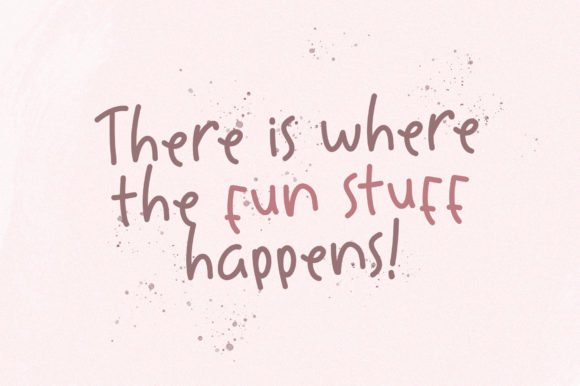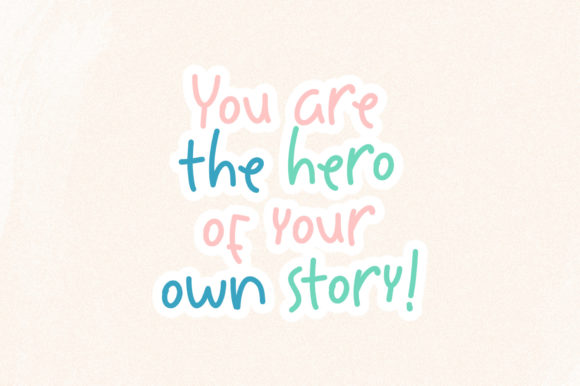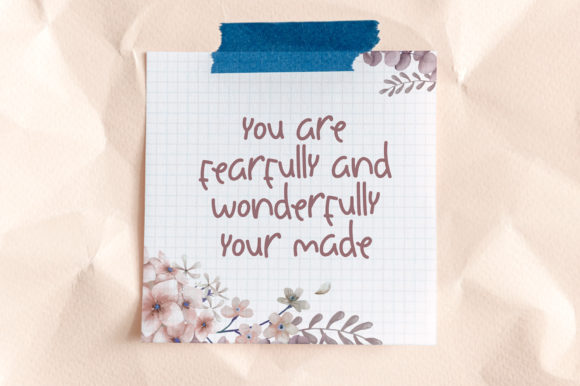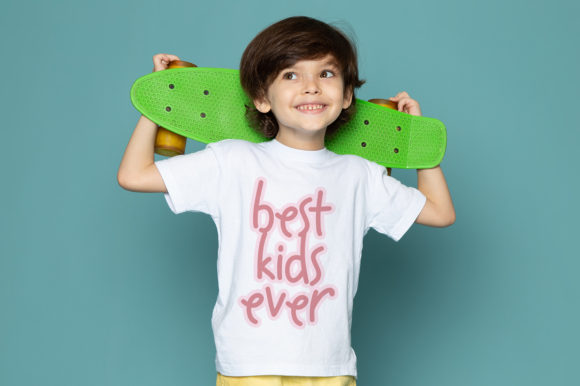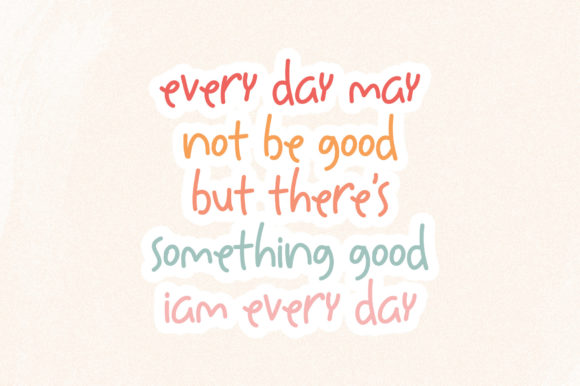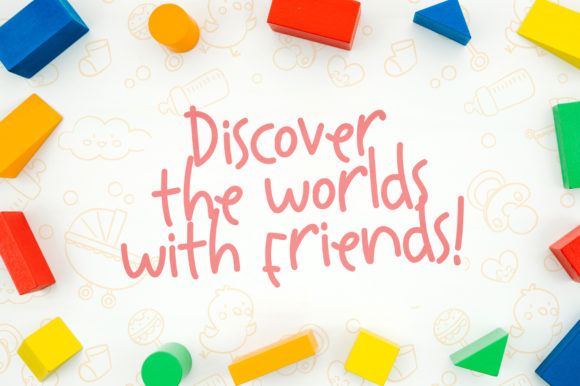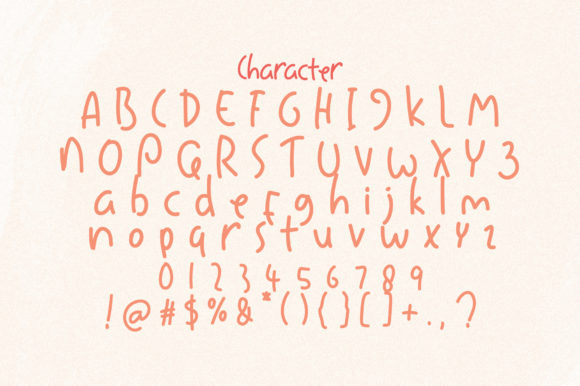
Likha Font
About Likha Font
Likha is a charming and authentic handwritten font that brings a personal and realistic touch to your designs. With its natural look and feel, it is the perfect choice for chalkboard quotes, teaching materials, and any design that requires a handcrafted vibe.
The beauty of Likha lies in its imperfect yet delightful letterforms. Each character carries the unique imperfections and nuances of hand-drawn typography, creating a sense of authenticity and warmth. This makes Likha an ideal font for projects that aim to evoke a sense of personal connection and creativity.
Whether you’re creating educational materials, inspirational quotes, or even decorative elements, Likha adds a touch of charm and character. Its organic strokes and irregularities give your designs a handmade and artisanal feel, setting them apart from the crowd.
Likha is versatile and adaptable, making it suitable for a variety of design applications. From classroom materials to social media graphics, Likha brings a personal and relatable element to your visual compositions. It can also be used for branding, packaging, greeting cards, and more, adding a sense of personality and authenticity to your projects.
Embrace the natural beauty and unique appeal of Likha as you infuse your designs with a touch of handmade warmth. With this font, your chalkboard quotes and teaching materials will come alive, capturing the attention and imagination of your audience. Let Likha be your creative companion as you create designs that feel personal, engaging, and genuinely handcrafted.